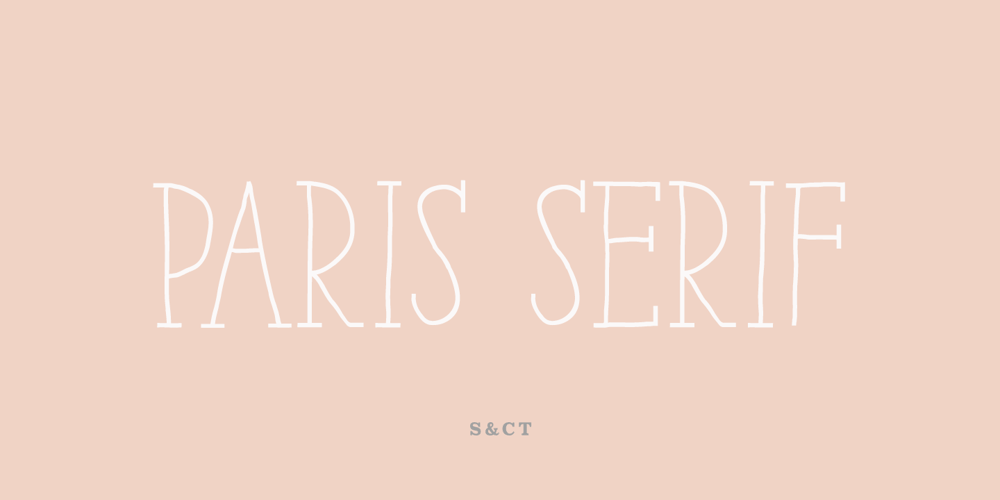
Paris Serif Font Family was designed by Julien Saurin, Fanny Coulez and published by S&C Type. Paris Serif contains 6 styles and family package options. Paris Serif is an avant-gardist serif handwritten font designed in Paris. It’s an all-caps thin font, with Art Deco ornaments and extended glyphs for many languages. But the little difference of Paris Serif from other handwriting typefaces is the Art Deco feeling that brings it a retro and directly familiar look. We hope you will enjoy our work. Merci beaucoup!